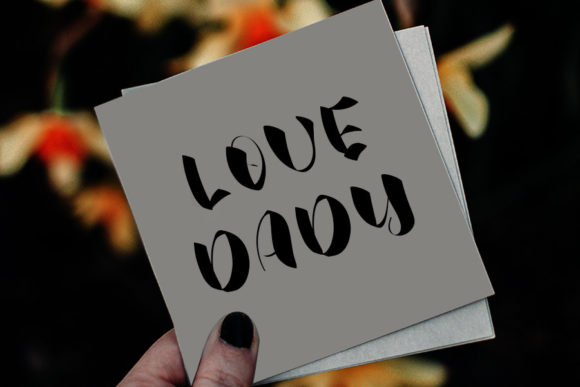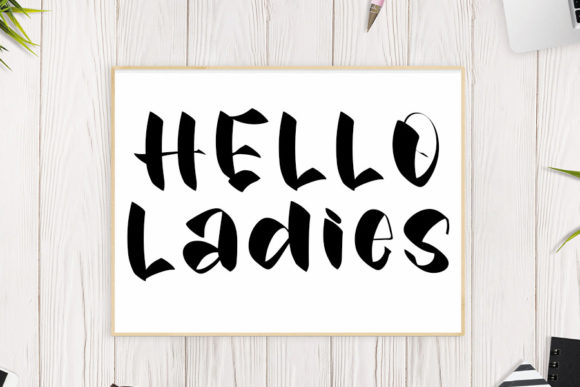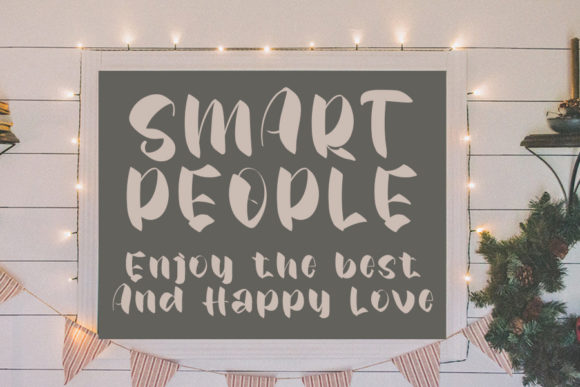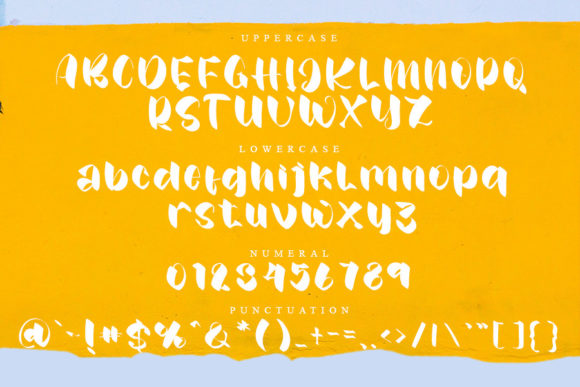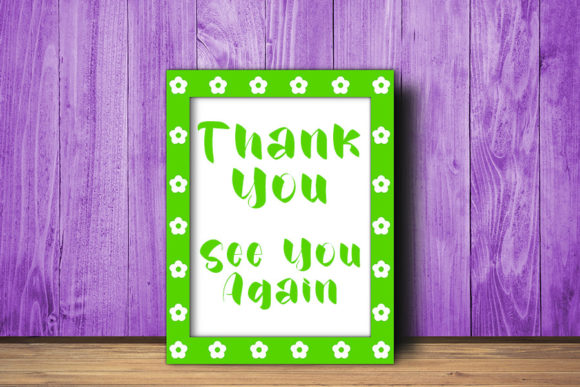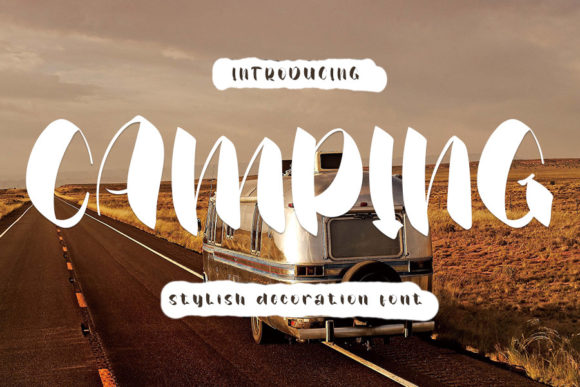
The Great Outdoors, Brought Indoors: Discovering the Charm of Camping Font
I’ll never forget the design project that led me to discover the Camping Font. I was working on a branding campaign for a new outdoor gear company, and I was struggling to find the perfect font that captured the essence of adventure and freedom. That’s when I stumbled upon Camping Font, and it was love at first sight! 😍
This whimsical, cool, and trendy display font instantly transported me to the great outdoors, and I knew I had found the perfect fit for my project. In this article, I’ll share my experience with Camping Font, its features, and how to make the most of it in your designs.
- Unique and eye-catching design that stands out in any project ✅
- Perfect for titles, headings, and display text where you want to make a statement 💥
- Works well with a variety of design styles, from rustic to modern 🌈
- Easy to read and understand, even in smaller sizes 📚
- May not be the best choice for body text or long paragraphs of text 📝
- Some characters may appear a bit condensed, so be mindful of spacing ⚠️
- Limited availability of language support, so check before using in multilingual projects 🌎
The Story Behind Camping Font: Designer Inspiration
Camping Font was designed with the great outdoors in mind. Its creator, a passionate designer and outdoor enthusiast, wanted to capture the essence of adventure and freedom in a font that would inspire creativity and imagination. With Camping Font, you can bring the outdoors in and add a touch of whimsy to your designs 🌟
Q: What is Camping Font best suited for?
A: Camping Font is perfect for titles, headings, and display text where you want to make a statement. It’s ideal for design projects that require a touch of whimsy and adventure, such as outdoor gear branding, travel brochures, or camping-themed party invitations 🎉
Q: Is Camping Font available in different languages?
A: Camping Font may have limited language support, so it’s essential to check the font’s specifications before using it in multilingual projects 🌎